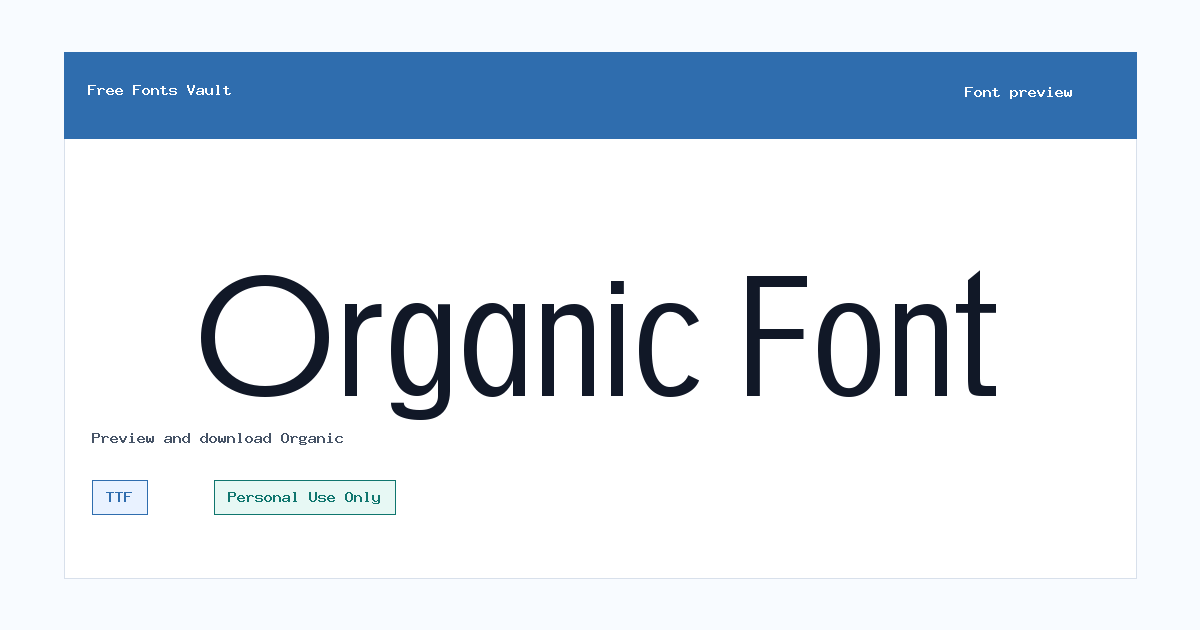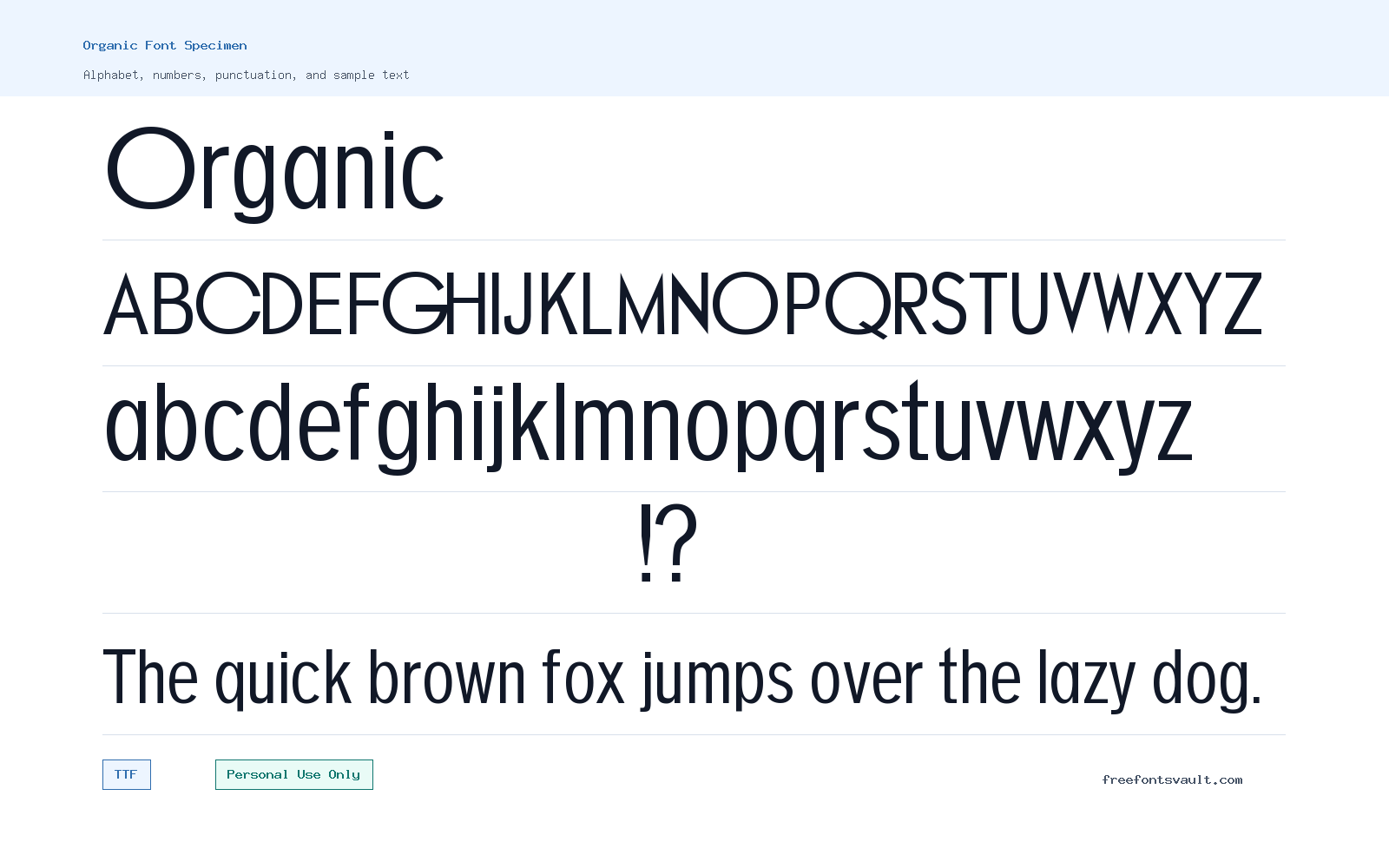
Organic
Organic font.
Organic is a regular-weight sans serif font with a clean, simple look that works best when you need clear text with a soft modern tone.
About Organic Font
Organic gives visitors a straightforward sans serif option for design tests, personal graphics, and quick typography experiments. The regular style keeps the letterforms even and easy to scan, making it more flexible than a highly decorative display font. Because the family information for this font lists one regular TTF file, it is best treated as a single-style typeface rather than a full system with many weights. That makes it easy to try, but it also means you should build contrast through size, spacing, color, or a second font instead of relying on bold, italic, or light styles from the same family.
Use the preview tool to test Organic with the exact words you plan to design. Short names, headings, product labels, quote graphics, social posts, and simple personal layouts are good places to start. Check how the spacing feels in all caps, title case, and lowercase, especially if your design uses tight tracking or small text. For longer paragraphs, preview a few full sentences before committing, since a single regular sans serif may feel plain or lose hierarchy without supporting weights. Organic can pair well with a quieter serif for editorial contrast, a heavier sans serif for strong headings, or a handwritten accent used sparingly. Keep the pairing simple so the page or graphic does not look crowded.
- Clean sans serif style suited to simple personal-use layouts, headings, and short text.
- Personal posters, quote cards, social graphics, labels, and simple title designs.
- Previewing clean sans serif typography where a single regular weight is enough.
Does Organic include multiple weights?
Only a regular 400 weight is listed, so plan your design as a single-style font or pair it with another typeface for stronger hierarchy.
What kinds of designs fit Organic best?
It is a practical choice for personal-use headings, labels, social graphics, name previews, and other short text where a clean sans serif style is useful.